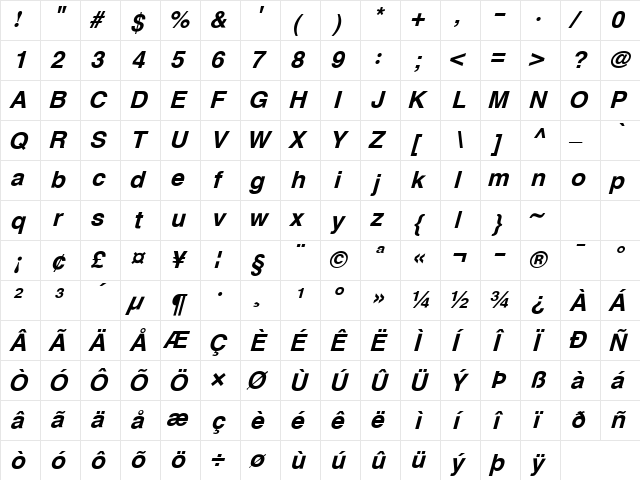
XB Zar Bold Italic
Design Context for XB Zar Typeface
XB Zar is a composed and adaptable typeface that performs quietly and consistently across a wide range of design contexts. The slanted form adds forward momentum and visual energy. Its bold stroke weight gives it real presence on the page.
Pro Tip: Try XB Zar for annotation and caption copy alongside an upright companion — the contrast in angle creates a dynamic but ordered typographic system.